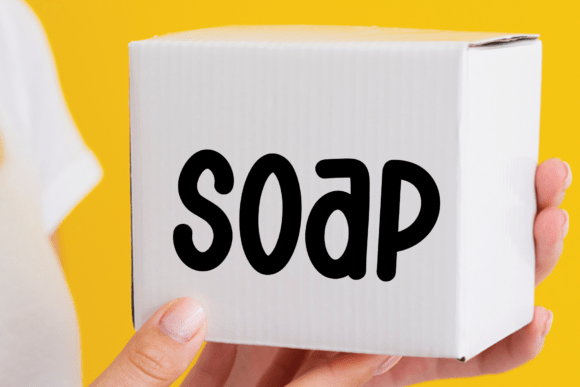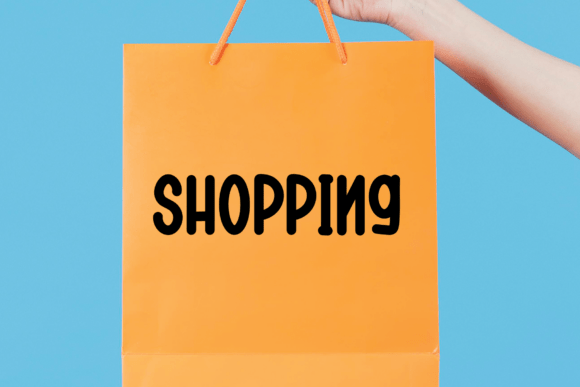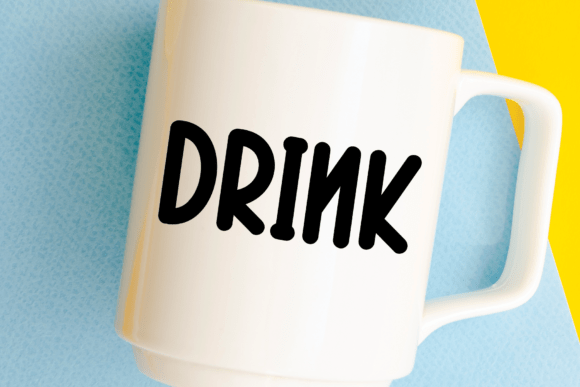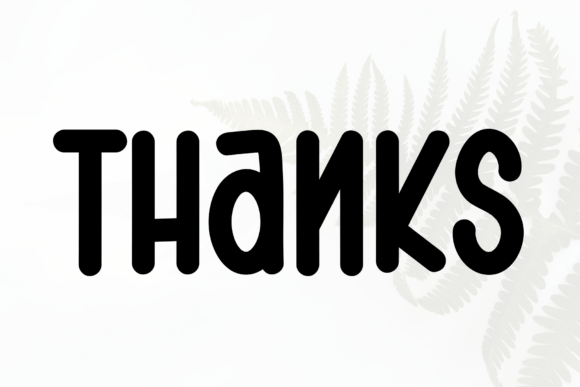
Introducing Blush Double Font: A Sweet and Beautiful Handwritten Style
Are you looking for a font that can add a touch of warmth and coziness to your design projects? Look no further than Blush Double Font! This beautiful handwritten font features characters that dance along the baseline, creating a playful and charming effect that’s perfect for a variety of design applications.
What is Blush Double Font?
Blush Double is a sweet and beautiful handwritten font that is designed to add a cozy accent to any design project. The font features a unique and elegant style, with characters that are carefully crafted to create a sense of movement and fluidity. The result is a font that is both visually appealing and highly versatile, making it perfect for use in a wide range of design projects.
Key Features of Blush Double Font
- Handwritten style: Blush Double Font features a beautiful handwritten style that is perfect for creating designs that are warm, inviting, and personal.
- Dancing characters: The font’s characters are designed to dance along the baseline, creating a playful and charming effect that adds visual interest to any design.
- Coziness and warmth: Blush Double Font is perfect for creating designs that are cozy and warm, making it ideal for use in projects such as branding, packaging, and stationery.
- Highly versatile: The font is highly versatile and can be used in a wide range of design applications, from digital designs to print materials.
Uses for Blush Double Font
Blush Double Font is a highly versatile font that can be used in a wide range of design projects. Here are some ideas for using this beautiful font:
- Branding and logos: Use Blush Double Font to create a unique and memorable logo for your brand, or to add a touch of personality to your brand’s visual identity.
- Stationery and invitations: The font’s handwritten style and dancing characters make it perfect for use in stationery and invitations, such as wedding invitations, birthday cards, and thank-you notes.
- Packaging design: Blush Double Font is a great choice for packaging design, particularly for products that are targeted towards a feminine or youthful audience.
- Digital designs: The font can also be used in digital designs, such as social media graphics, blog posts, and email marketing campaigns.
Tips for Using Blush Double Font
Here are some tips for getting the most out of Blush Double Font:
- Use it sparingly: While Blush Double Font is a beautiful font, it can be overwhelming if used too much. Use it sparingly to add a touch of personality to your designs.
- Pair it with other fonts: Blush Double Font pairs well with other fonts, particularly sans-serif fonts. Experiment with different font combinations to find the one that works best for your design.
- Adjust the size and color: Don’t be afraid to experiment with different sizes and colors to find the one that works best for your design.
Blush Double Font is a sweet and beautiful handwritten font that is perfect for adding a touch of warmth and coziness to your design projects. With its unique and elegant style, dancing characters, and high versatility, this font is sure to become a favorite among designers and crafters. Whether you’re creating branding materials, stationery, packaging, or digital designs, Blush Double Font is a great choice.